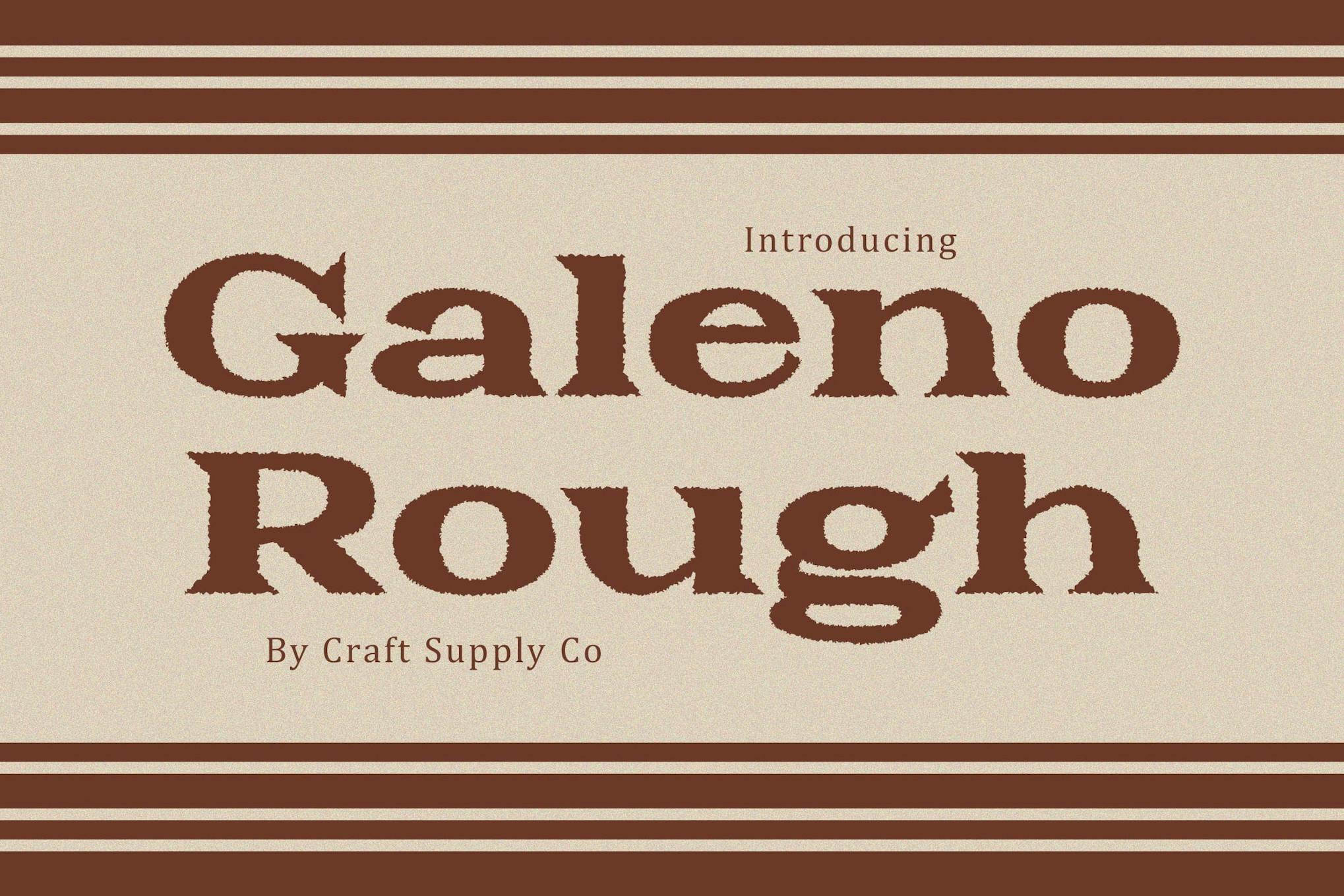
Galeno Rough Font
Perfect for vintage branding, poster designs, apparel prints, packaging, and social media visuals.
The Galeno Rough Font excites designers with its bold, distressed brush strokes and textured edges, offering a handcrafted, gritty look that brings character and energy to any project.
Font families: Galeno Rough Regular, Galeno Rough Bold, Galeno Rough Italic.
The Galeno Rough Font Free Download is a distinctive typeface that combines raw, rough textures with strong legibility. Ideal for creative projects seeking an authentic, vintage or grunge aesthetic, Galeno Rough delivers a bold statement for posters, branding, and packaging alike.
One of the standout features of Galeno Rough Font is its perfect balance between rugged texture and readability. Despite its distressed style, it remains clear and impactful for headlines, logos, and display text, ensuring your message is communicated with power.
In branding, Galeno Rough conveys strength, creativity, and authenticity. It pairs well with earthy color palettes, worn textures, and handcrafted visuals, helping brands build genuine connections with their audience.
For digital use, this font enhances social media posts, website banners, and marketing materials with its unique, textured style. Its bold character ensures your digital content stands out with personality and flair.